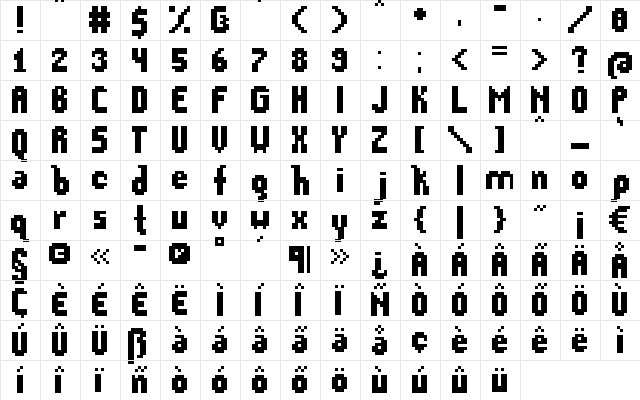
Grid-30 Regular
Design Context for Grid-30 Typeface
Grid-30 is a composed and adaptable typeface that performs quietly and consistently across a wide range of design contexts.